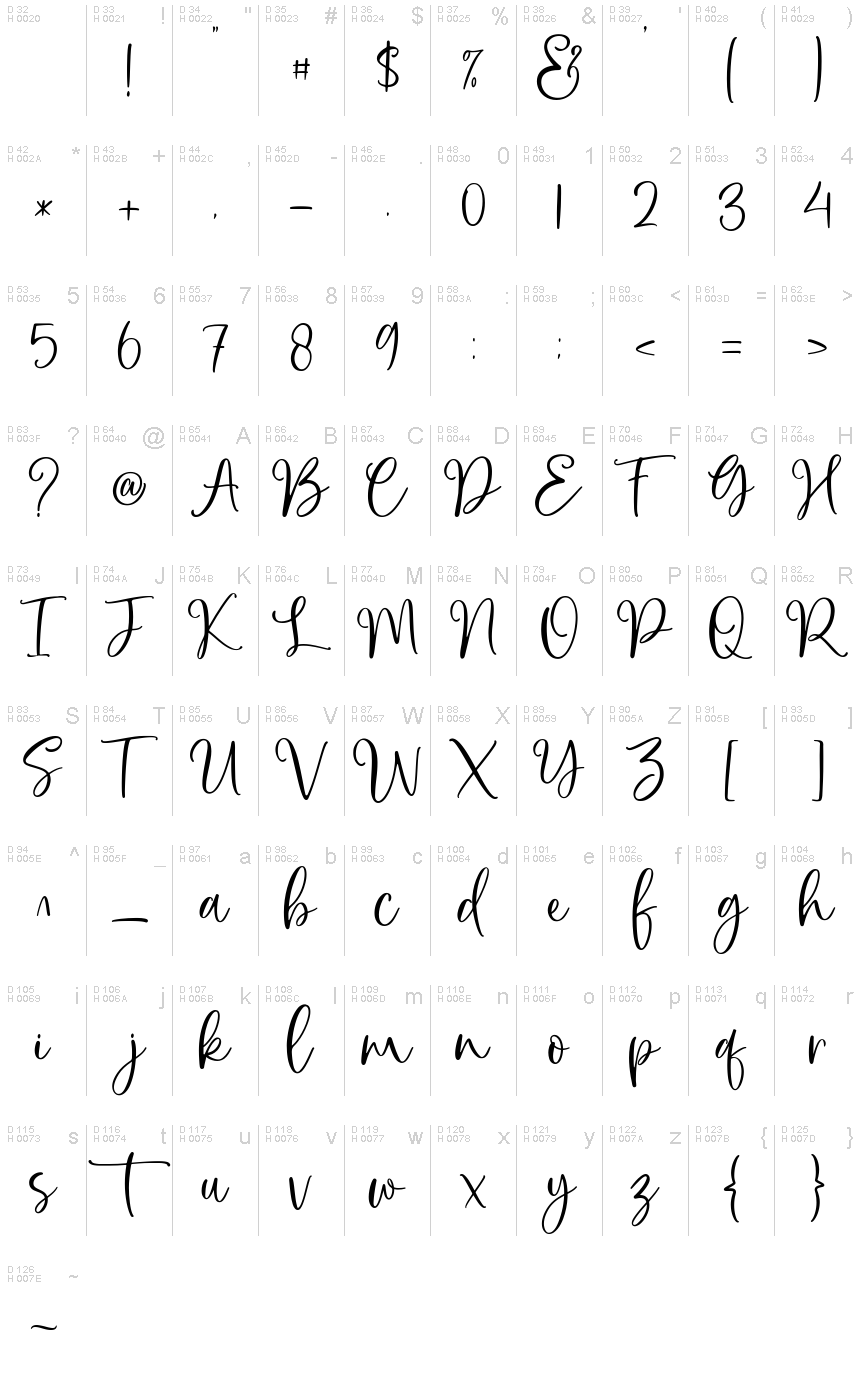
Yasinta
Yasinta font is a captivating handwritten typeface designed by Ramli Setiadi. Its fluid strokes and graceful curves evoke a sense of warmth and personal touch, making it perfect for conveying emotions in any design. The font boasts a light appearance that enhances its elegance, while the playful loops and swirls add a unique charm.
Visually striking, Yasinta finds its place in invitations, greeting cards, or branding projects that aim for a friendly yet sophisticated look. Whether you're crafting whimsical designs or chic modern layouts, this font seamlessly adapts to various contexts. Yasinta’s expressive character makes it an ideal choice for any project wanting to embody creativity and intimacy in written form.